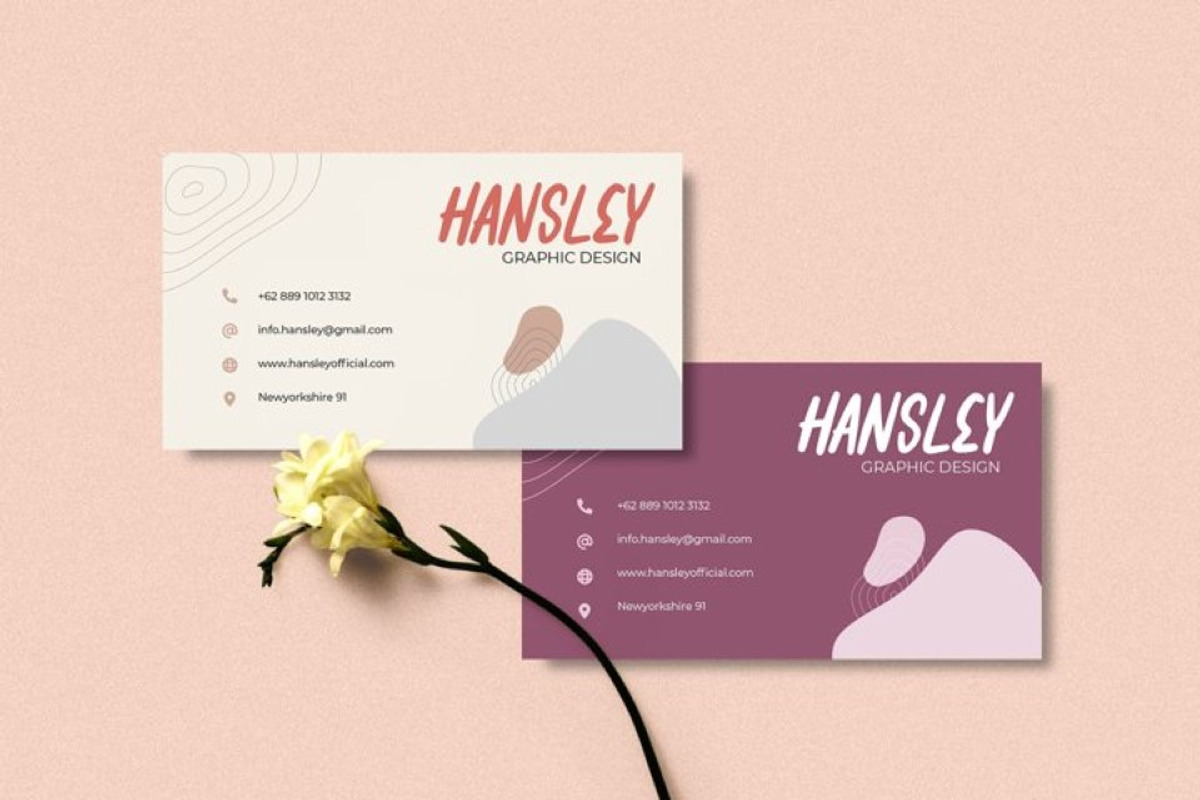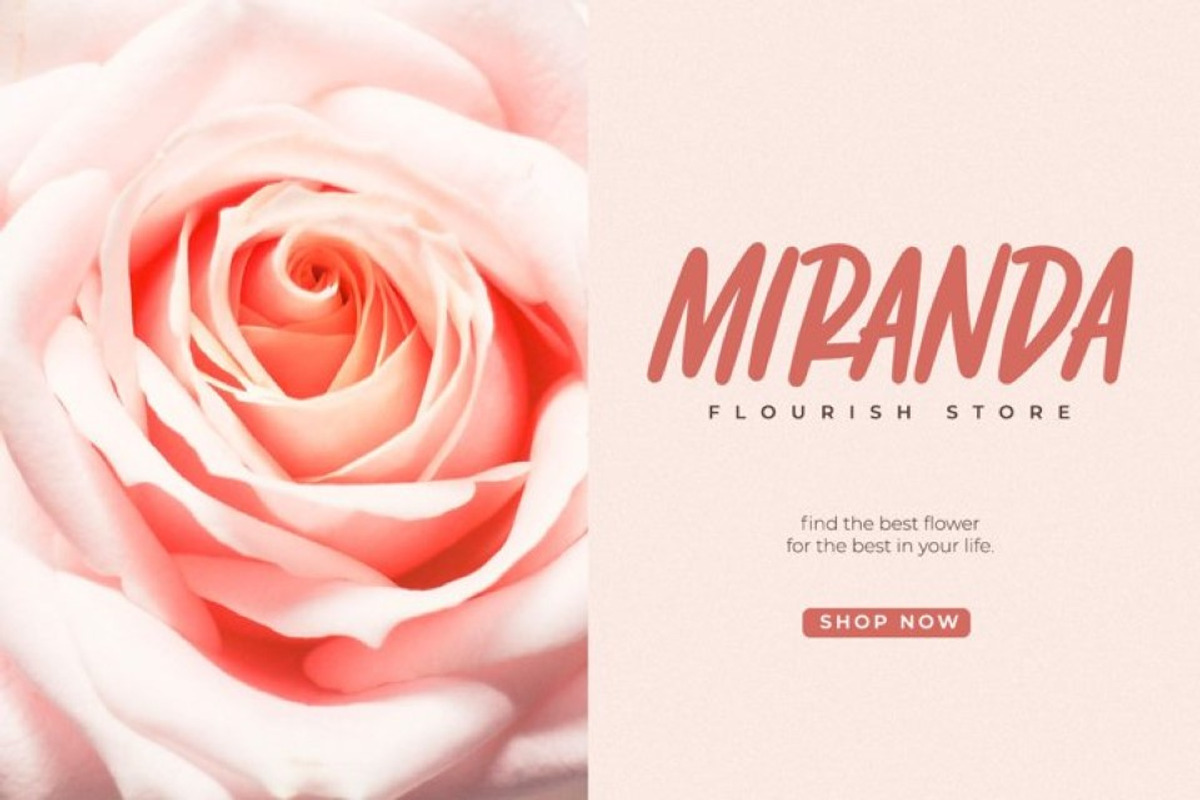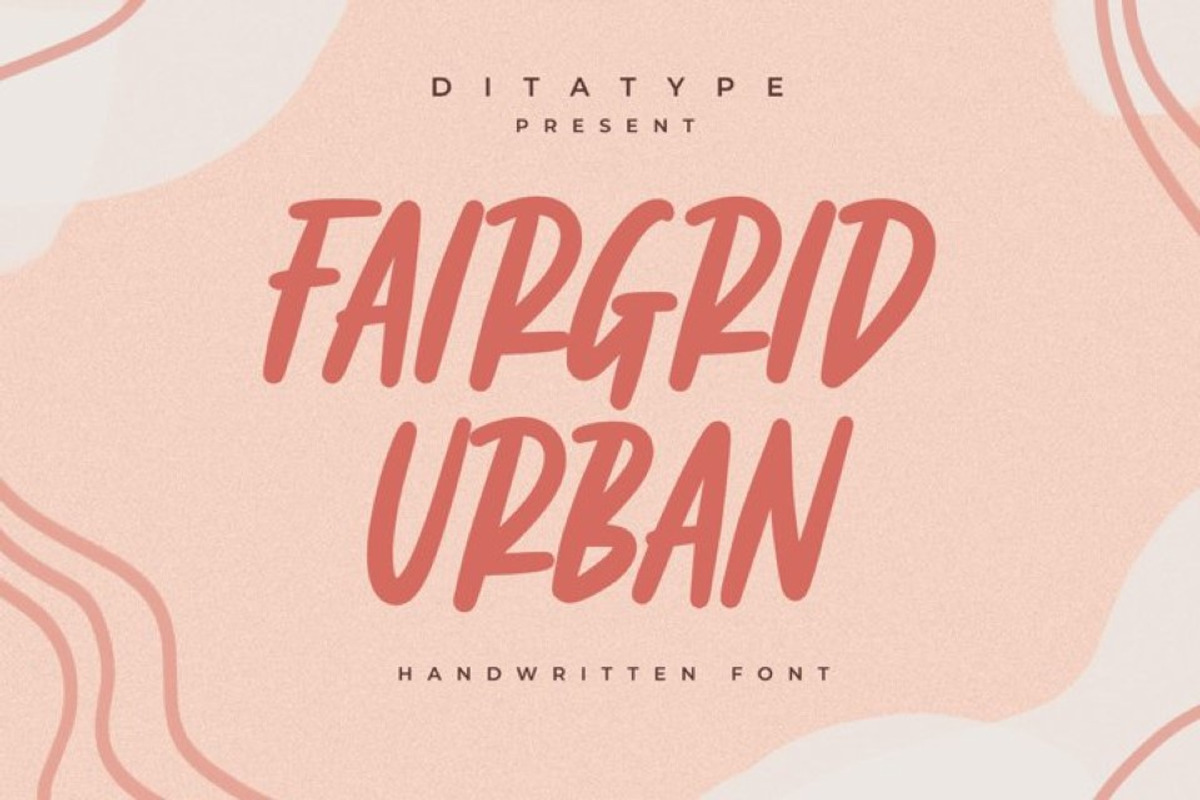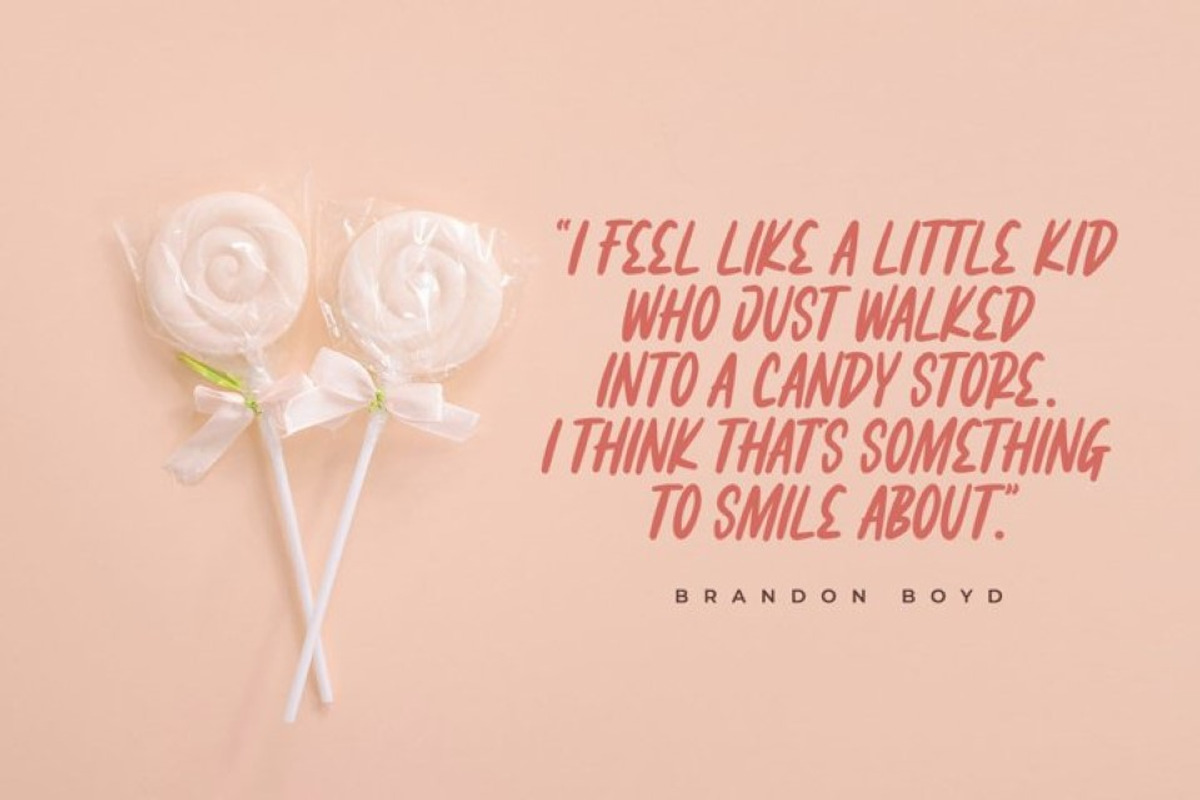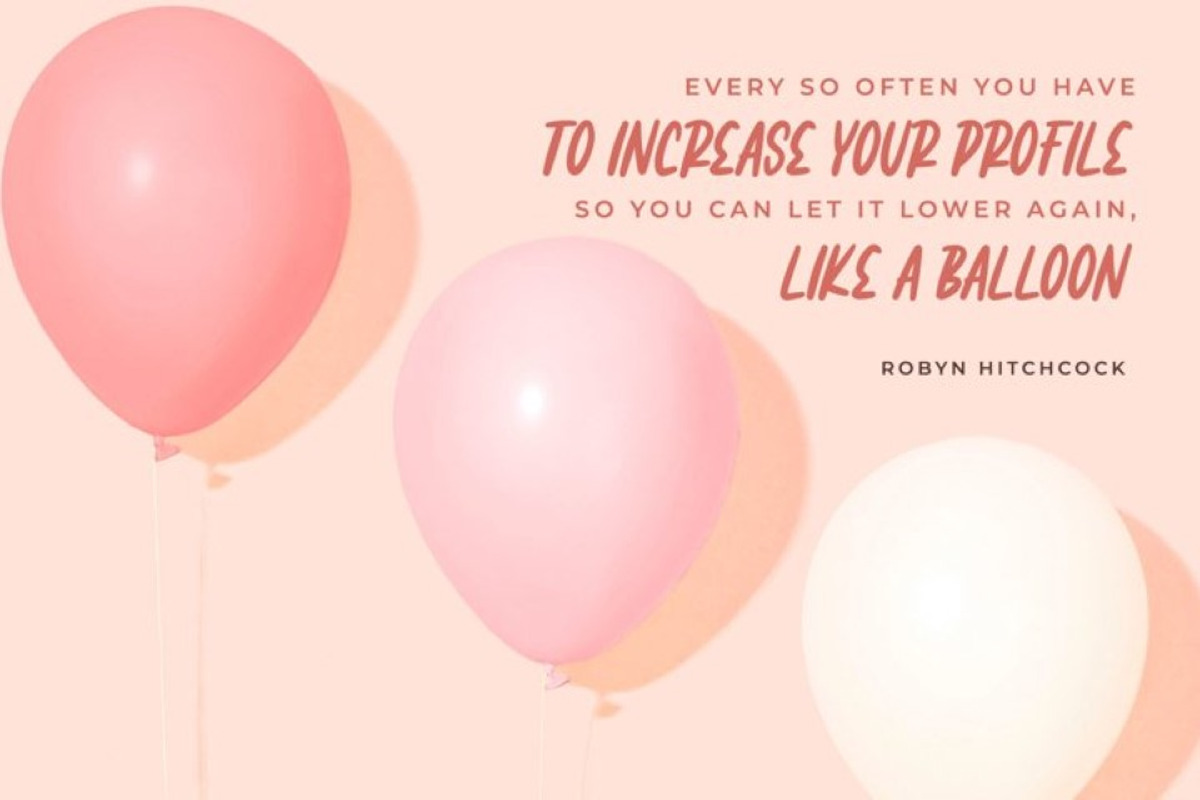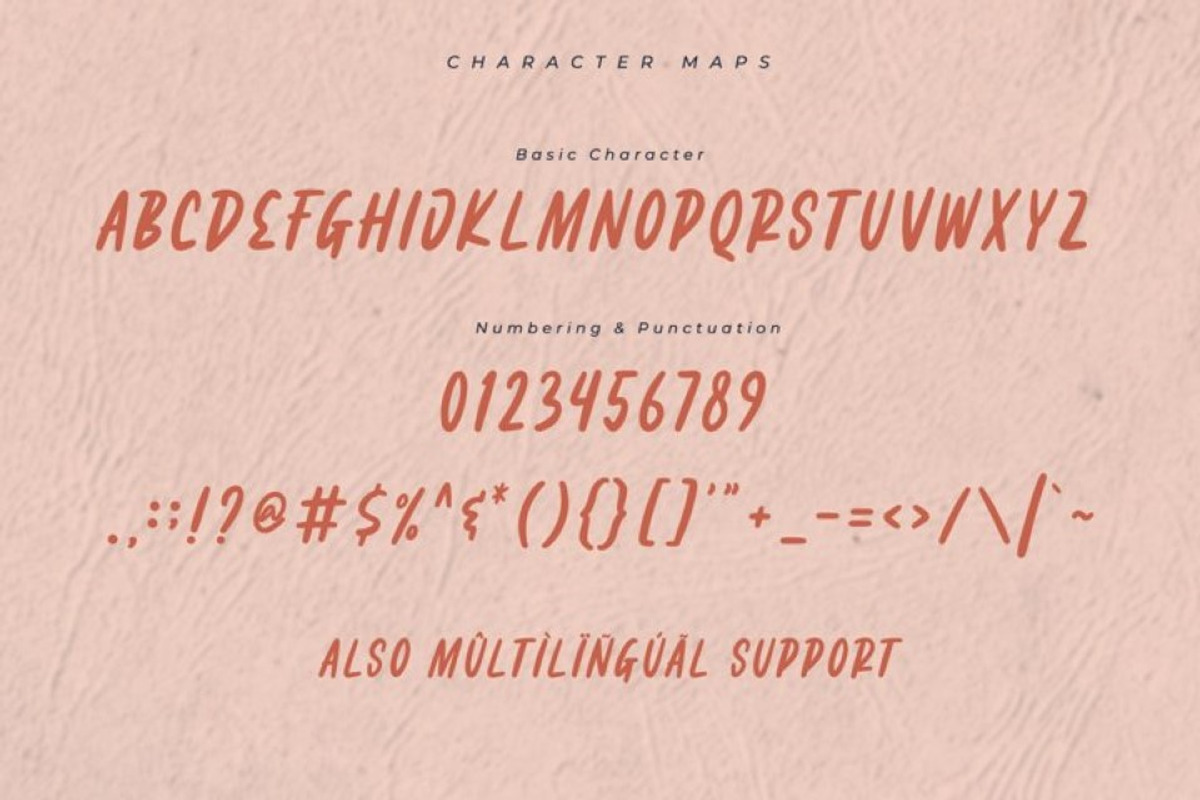
Fairgrid Urban
Fairgrid Urban is a modern handwritten font. With a classy and natural handwritten style, it brings a classy and chic typeface. It can be used for titles, invitations, poster designs, branding, quotes, logos, and many more.
- Beautiful Ligatures